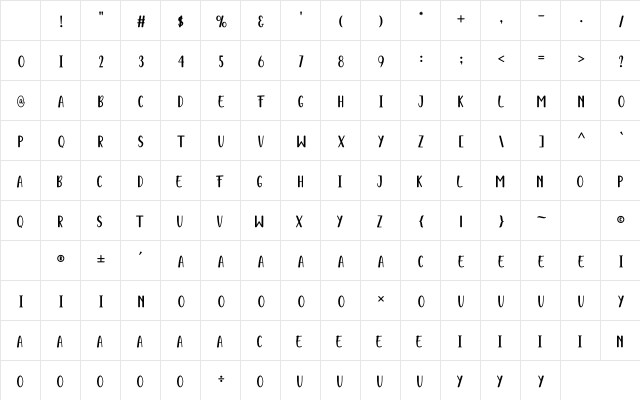
Complete Halloween Costume Regular glyph index. Displaying only characters natively supported by Halloween Costume Regular font.
Halloween Costume is a composed and adaptable typeface that performs quietly and consistently across a wide range of design contexts.